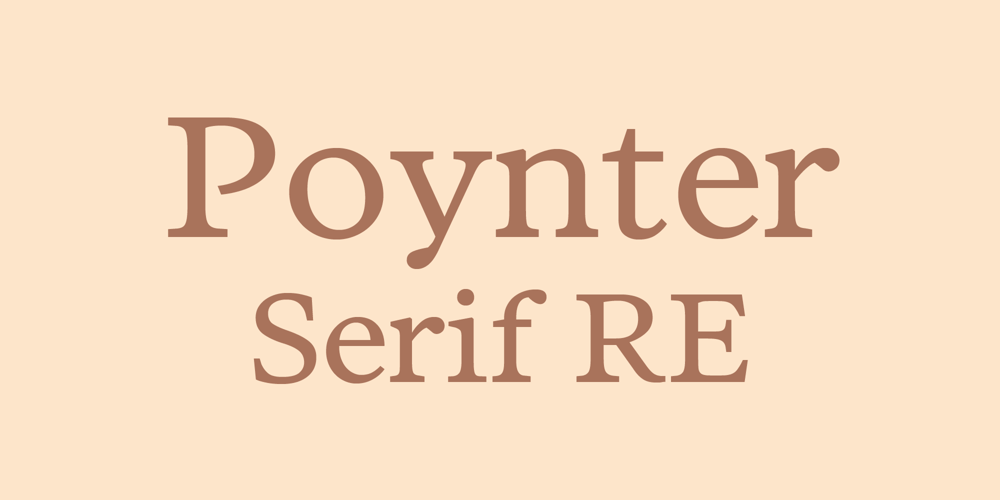
Poynter Serif RE Font Family was designed by David Berlow and published by Font Bureau. Poynter Serif RE contains 4 styles and family package options. Inspired by the work of Hendrik van den Keere, Tobias Frere-Jones and David Berlow designed a family of typefaces focused on the challenges of newsprint publishing. This version of the family is part of the Reading Edge series of fonts specifically designed for small text onscreen, having been adjusted to provide more generous proportions and roomier spacing, and having been hinted in TrueType for optimal rendering in low resolution environments.